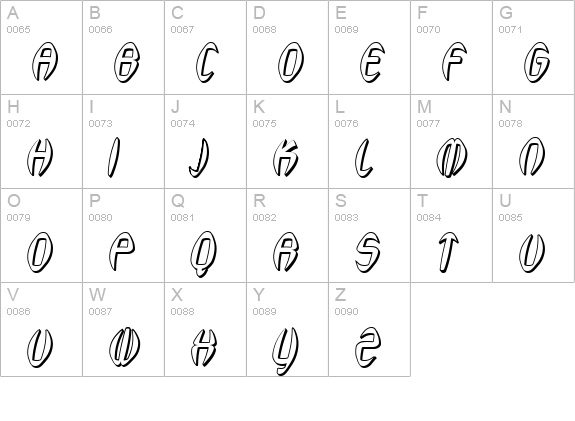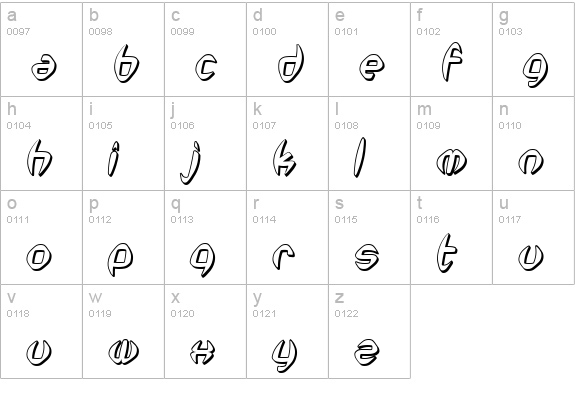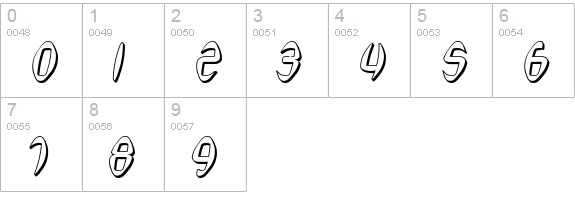
SF Synthonic Pop Shaded Oblique Font Details
SF Synthonic Pop Shaded Oblique is a distinctive, italic variant in the SF typeface family \xE2\x80\x94 well suited to design and typography projects.
SF Synthonic Pop Shaded Oblique font is a mesmerizing display of futuristic elegance and vibrant energy. This font effortlessly combines elements of synthwave aesthetics with pop culture influences, resulting in a captivating visual experience that is sure to make any design project stand out. The unique oblique angle adds a dynamic twist to the already bold and striking letterforms, creating a sense of movement and forward motion. Each character is meticulously crafted with sleek lines and geometric shapes, giving it a distinct modern feel that is perfect for conveying a sense of technology and progress. With its vibrant color palette and shaded effect, SF Synthonic Pop Shaded Oblique font brings a touch of retro nostalgia while still maintaining a contemporary edge. It evokes images of neon-lit cityscapes, pulsating music, and a futuristic world waiting to be explored. One of the best things about SF Synthonic Pop Shaded Oblique font is that it is freely available to download at FontsMarket.com. This means that designers and creatives can easily access this stunning font and incorporate it into their projects without any restrictions. Whether it's for a poster, album cover, website, or any other design endeavor, this font offers endless possibilities for creating visually captivating and memorable compositions. So why wait? Unleash your creativity and bring your designs to life with SF Synthonic Pop Shaded Oblique font. Download it for free at FontsMarket.com and embark on a journey into a world where retro meets the future.